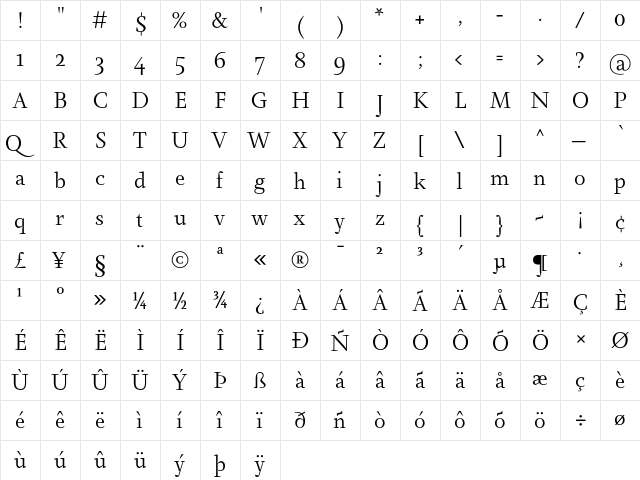
Farrerons Serif Light Regular
| Foundry | Josep Patau Bellart |
| Designer | Josep Patau Bellart |
Design Context for Farrerons Serif Light Typeface
Farrerons Serif Light brings classic typographic sensibility to the table — its serifs and measured letterforms reflect centuries of print heritage. Its slender proportions lend an understated elegance to any composition.
Pro Tip: Set Farrerons Serif Light at slightly larger body copy sizes than you would a regular-weight serif to compensate for its delicate stroke contrast.